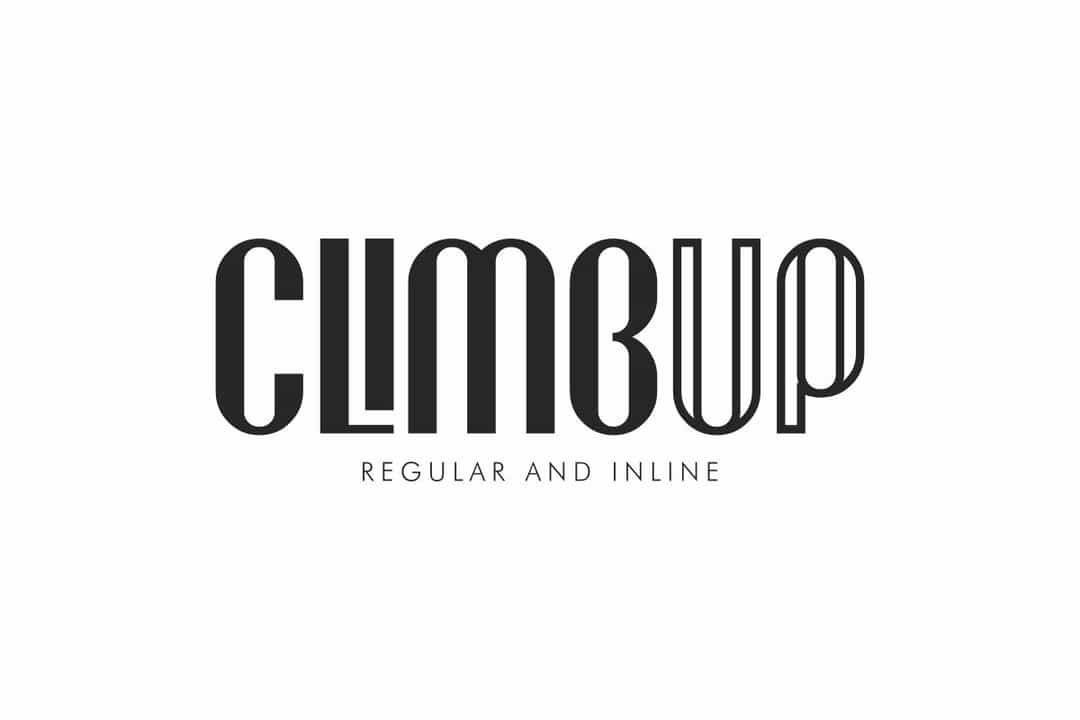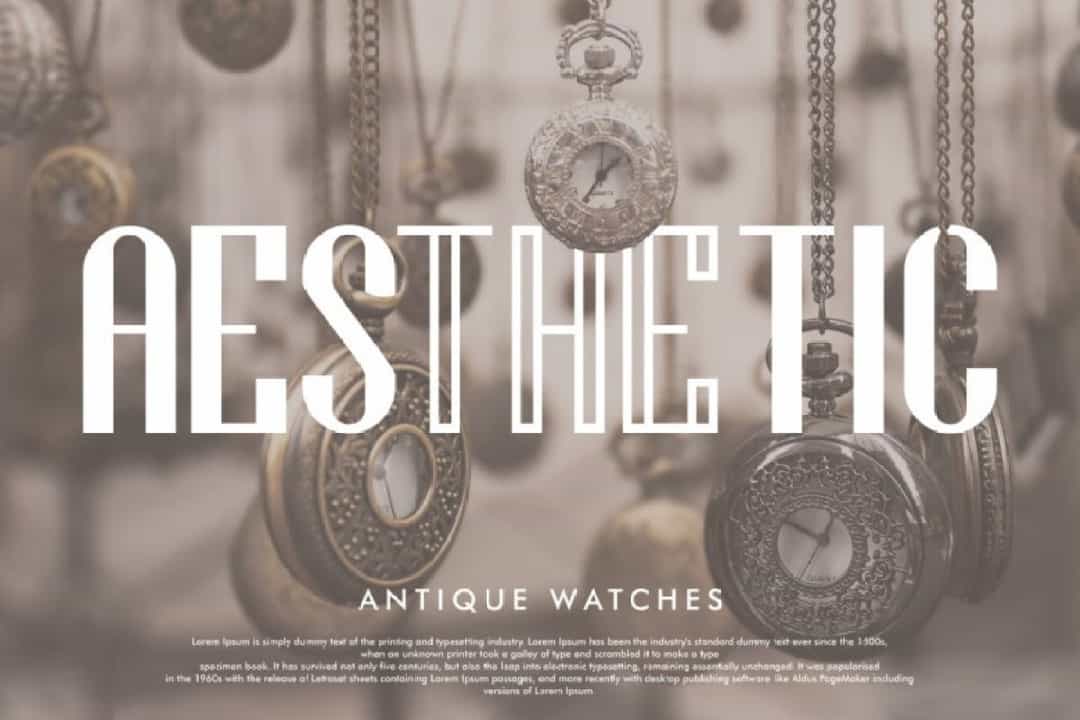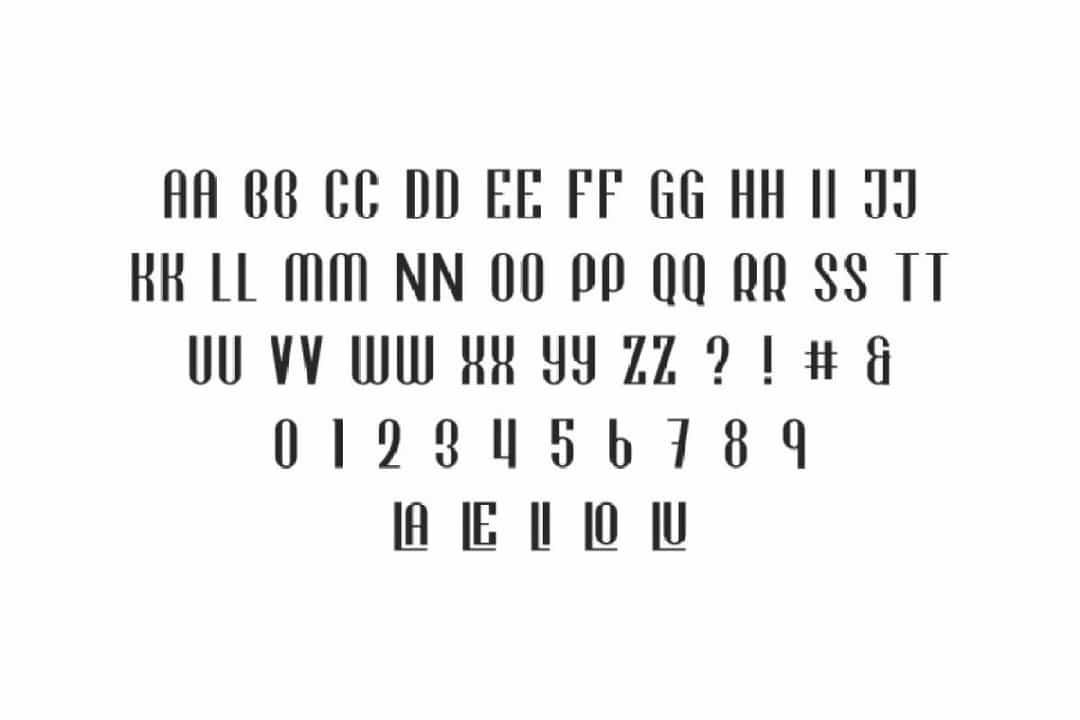
CLIMBUP is a sophisticated font designed in two versions and including four types of style. First created by NihStudio Font Designers Nouval, Widi and Sarah for Ebanorama. Climbup Font can be applied to any project that needs the extended license such as branding element that includes logo, stationery, business card, stationary, flyer, sign, brochure and etc.